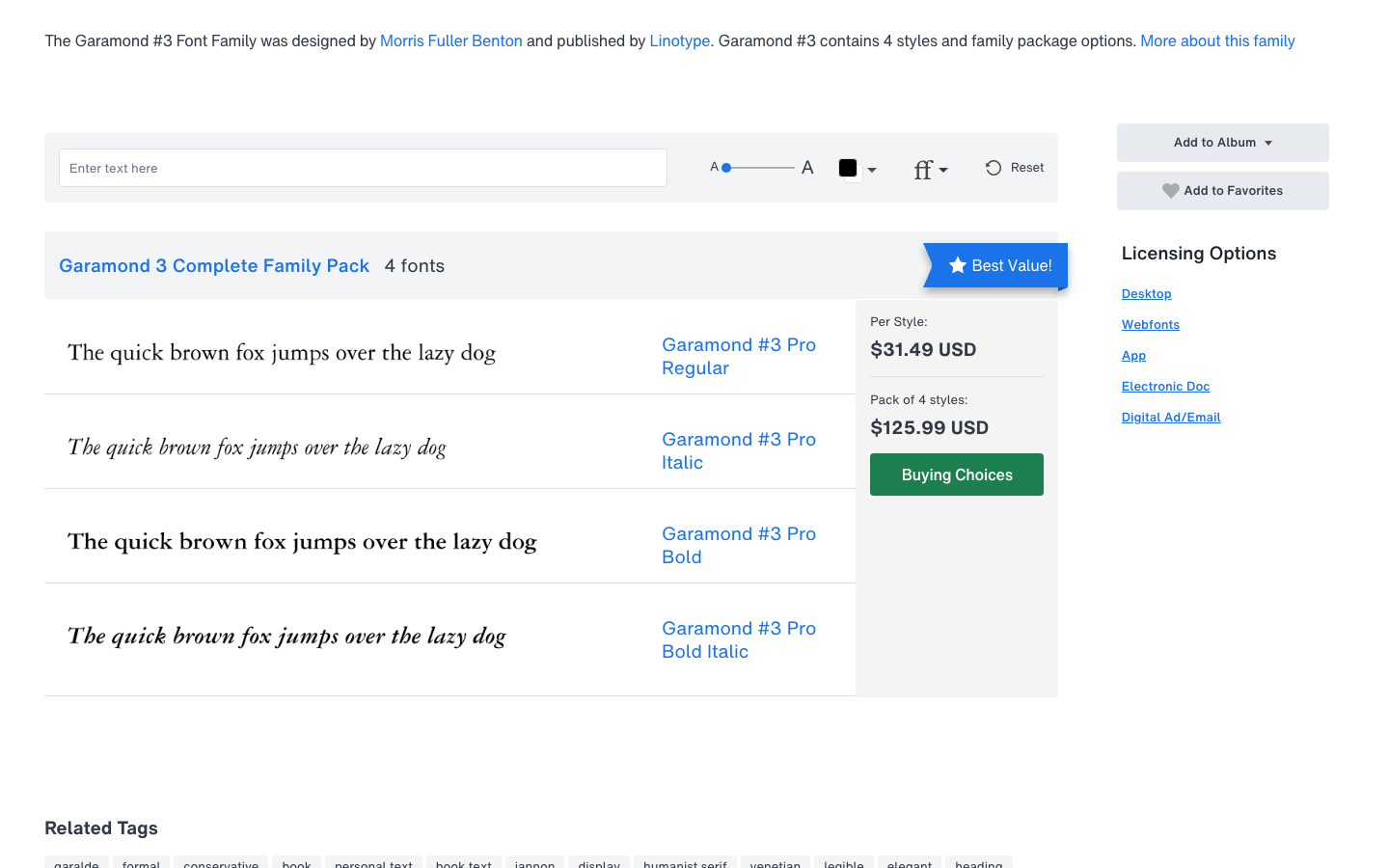
Crimson Pro vs Garamond 3
Crimson Pro is a popular open-source alternative to Garamond 3's retro design. At 66% similarity, Crimson Pro delivers a elegant, classic aesthetic. Compare which works better for books and editorial projects.
66% Similarity
Crimson Pro
Garamond 3
Recommended: Crimson Pro
- Shares Garamond 3's retro, elegant character
- Variable font with continuous weight adjustment
- Delivers a elegant, classic, sophisticated aesthetic
- Popular in legal-law and education-academia design
- Versatile enough to replace 25+ premium fonts
Consider: Garamond 3
- Designed specifically for books and editorial